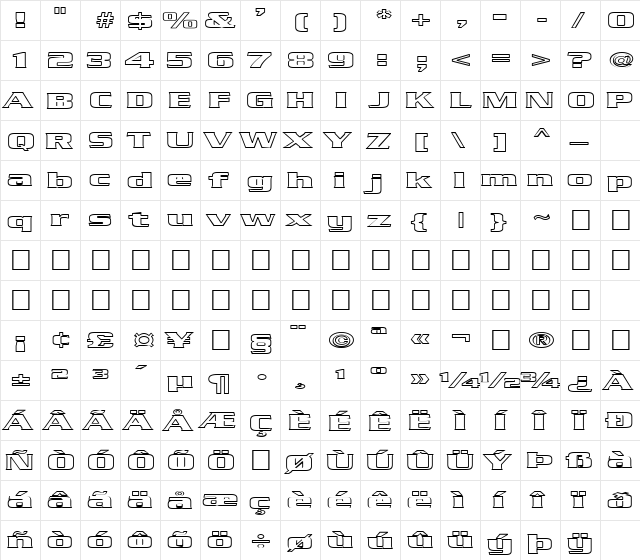
FZ ROMAN 11 HOLLOW EX Bold Font Preview
FZ ROMAN 11 HOLLOW EX Bold
Design Context for FZ ROMAN 11 HOLLOW EX Typeface
FZ ROMAN 11 HOLLOW EX is a composed and adaptable typeface that performs quietly and consistently across a wide range of design contexts. The heavy weight commands attention and anchors typographic hierarchies.